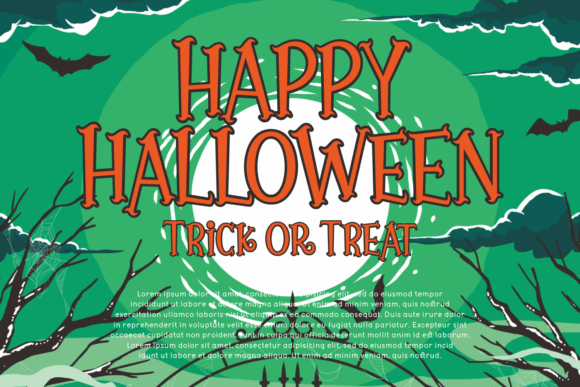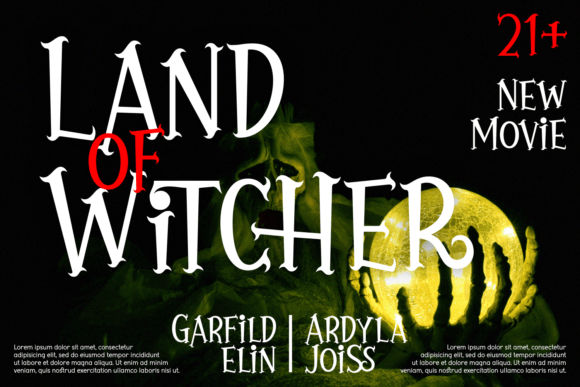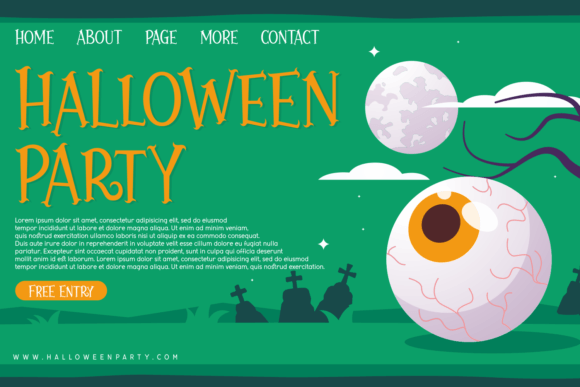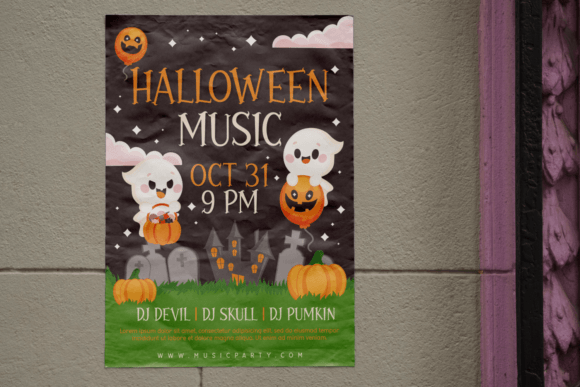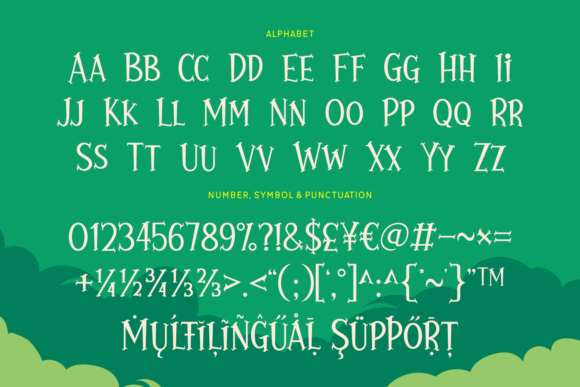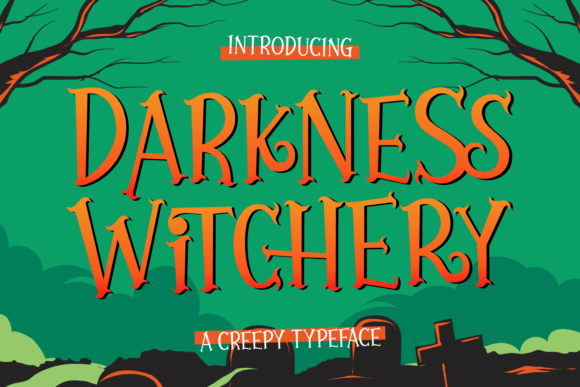
Unleash the Spookiness: Introducing Darkness Witchery Font
Are you ready to cast a spell of eeriness on your designs? Look no further than the Darkness Witchery Font, a scary mystical display font that’s perfect for creating the creepiest Halloween projects. With its witchy and magnetic character, this font is sure to add a touch of darkness to your designs and leave a lasting impression on your audience.
The Perfect Font for Halloween Designs
Halloween is just around the corner, and with it comes the opportunity to get creative with your designs. Whether you’re a designer, crafter, or simply someone who loves the spooky season, the Darkness Witchery Font is a must-have addition to your font collection. This font is specifically designed to evoke the mystery and intrigue of the supernatural, making it perfect for creating eye-catching Halloween-themed designs.
What Makes Darkness Witchery Font So Special?
So, what sets the Darkness Witchery Font apart from other fonts? Here are just a few of its standout features:
- Witchy and Magnetic Character: The Darkness Witchery Font has a unique, witchy charm that’s sure to captivate your audience. Its magnetic character draws you in, making it perfect for creating designs that grab attention.
- Scary Mystical Display Font: This font is designed to make a statement. Its bold, mystical letters are perfect for creating eye-catching headlines and titles that will leave a lasting impression.
- Perfect for Halloween Projects: Whether you’re creating invitations, posters, or social media graphics, the Darkness Witchery Font is the perfect choice for your Halloween designs.
How to Use Darkness Witchery Font in Your Designs
Using the Darkness Witchery Font in your designs is easy. Here are a few tips to get you started:
- Create Eye-Catching Headlines: Use the Darkness Witchery Font to create bold, attention-grabbing headlines that will draw your audience in.
- Add a Touch of Whimsy: Mix the Darkness Witchery Font with other fonts to add a touch of whimsy to your designs.
- Experiment with Colors: Try pairing the Darkness Witchery Font with different colors to create a unique look that’s all your own.
Why Designers and Crafters Love Darkness Witchery Font
Designers and crafters love the Darkness Witchery Font for a variety of reasons. Here are just a few:
- Unique and Versatile: The Darkness Witchery Font is a unique addition to any font collection. Its versatility makes it perfect for a wide range of design projects.
- High-Quality Design: The Darkness Witchery Font is designed to high standards, ensuring that your designs look professional and polished.
Get Ready to Cast a Spell with Darkness Witchery Font
In conclusion, the Darkness Witchery Font is a must-have for designers and crafters who want to add a touch of darkness to their designs. With its witchy and magnetic character, scary mystical display font, and versatility, this font is perfect for creating eye-catching Halloween projects. So why wait? Add the Darkness Witchery Font to your collection today and get ready to cast a spell of eeriness on your designs!